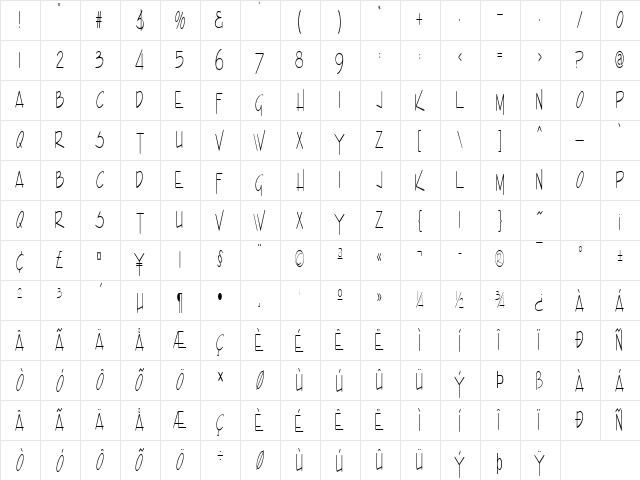
Enview Xtra Light Normal
Design Context for Enview Xtra Light Typeface
Enview Xtra Light offers clean, dependable letterforms without strong stylistic allegiance, making it a practical choice for designers who need flexibility. Its slender proportions lend an understated elegance to any composition.